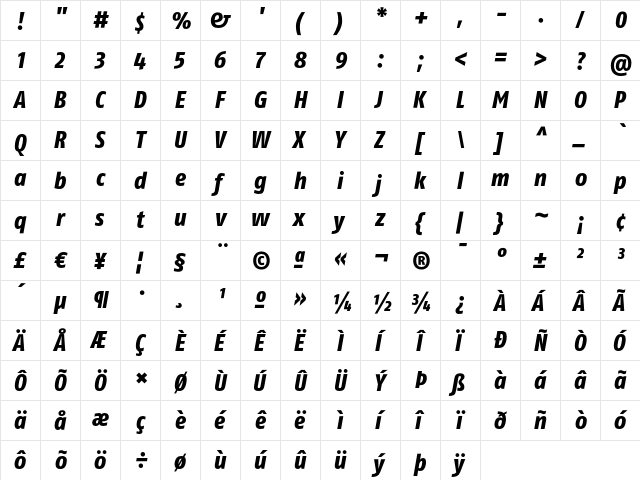
FagoCoLf ExtraboldItalic
Design Context for FagoCoLf Typeface
FagoCoLf is a composed and adaptable typeface that performs quietly and consistently across a wide range of design contexts. The dynamic lean of this cut emphasises speed and emphasis in any layout. The heavy weight commands attention and anchors typographic hierarchies.
Pro Tip: Use FagoCoLf for emphasis, pull quotes, and subheadings where its slanted energy can add rhythm to the layout.